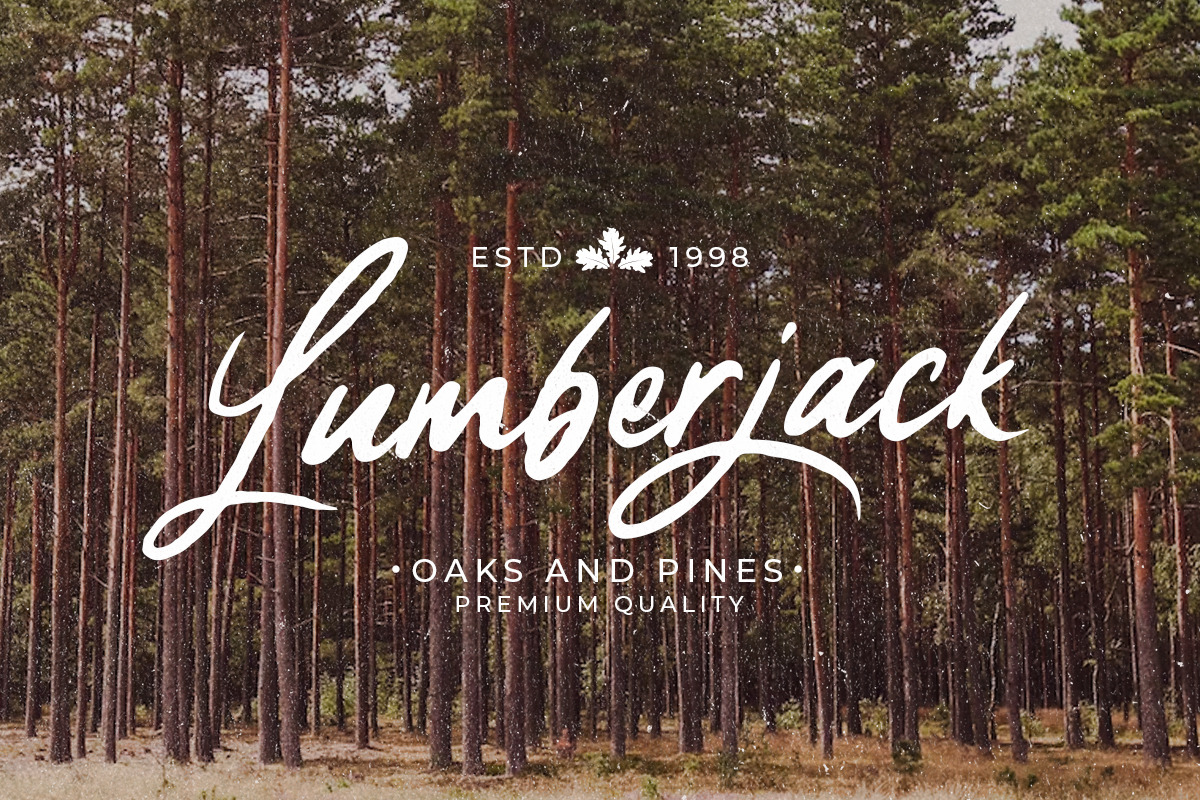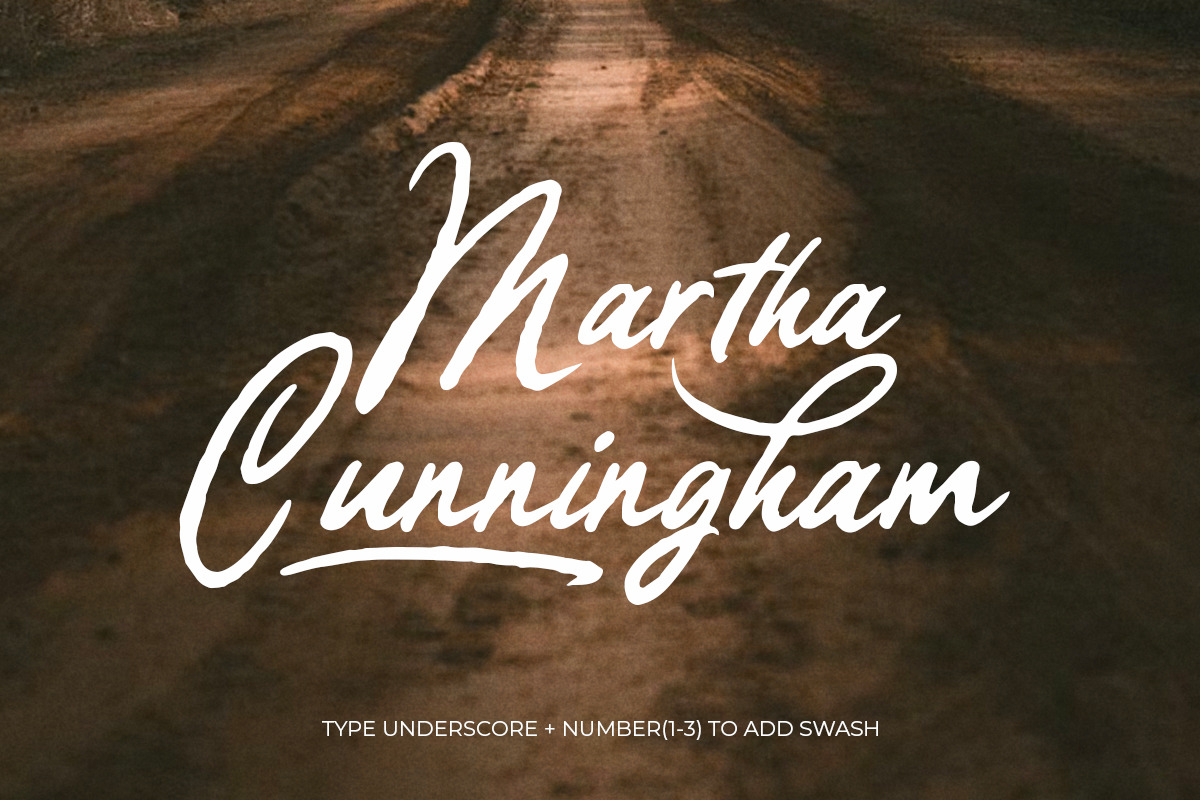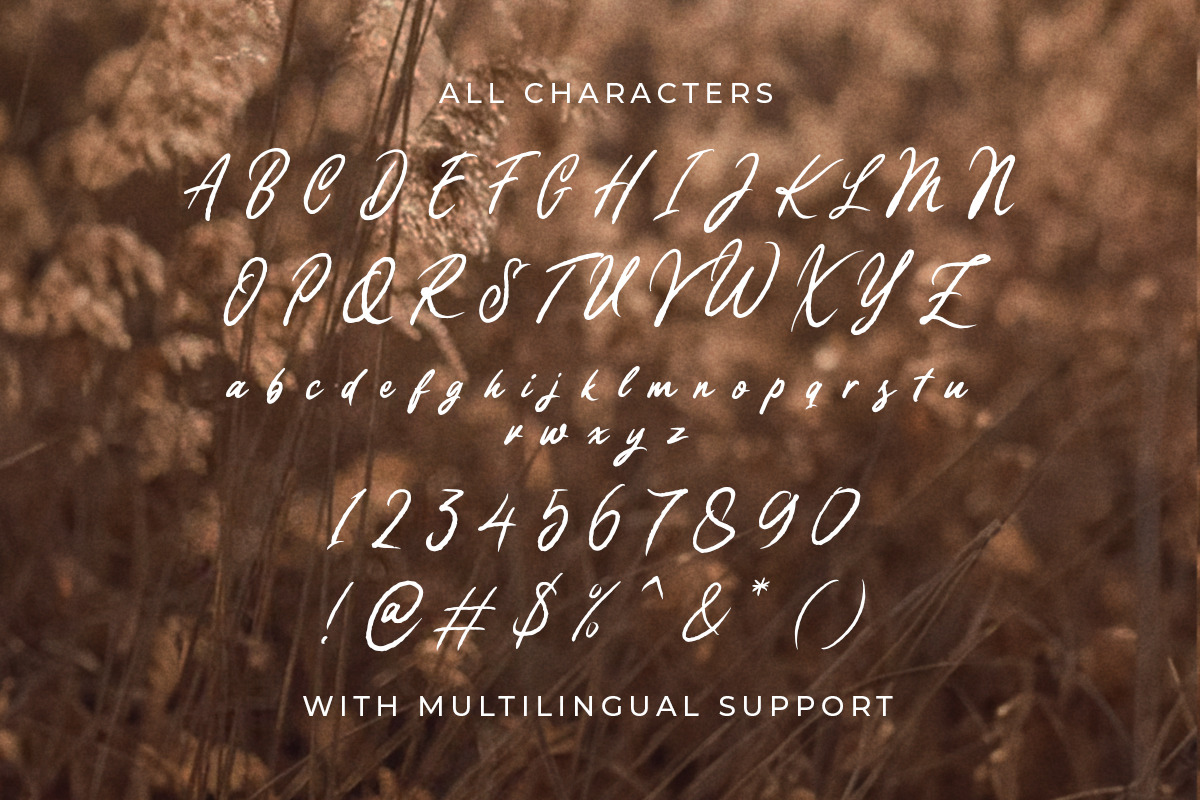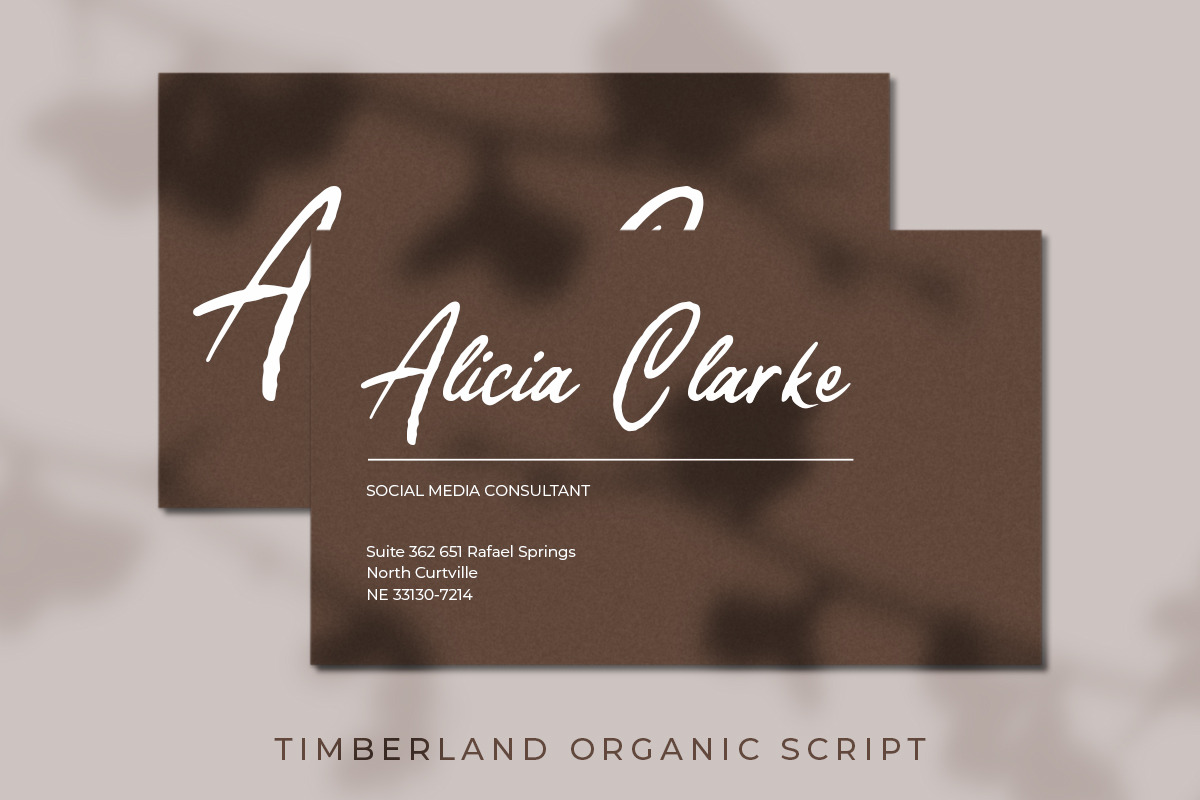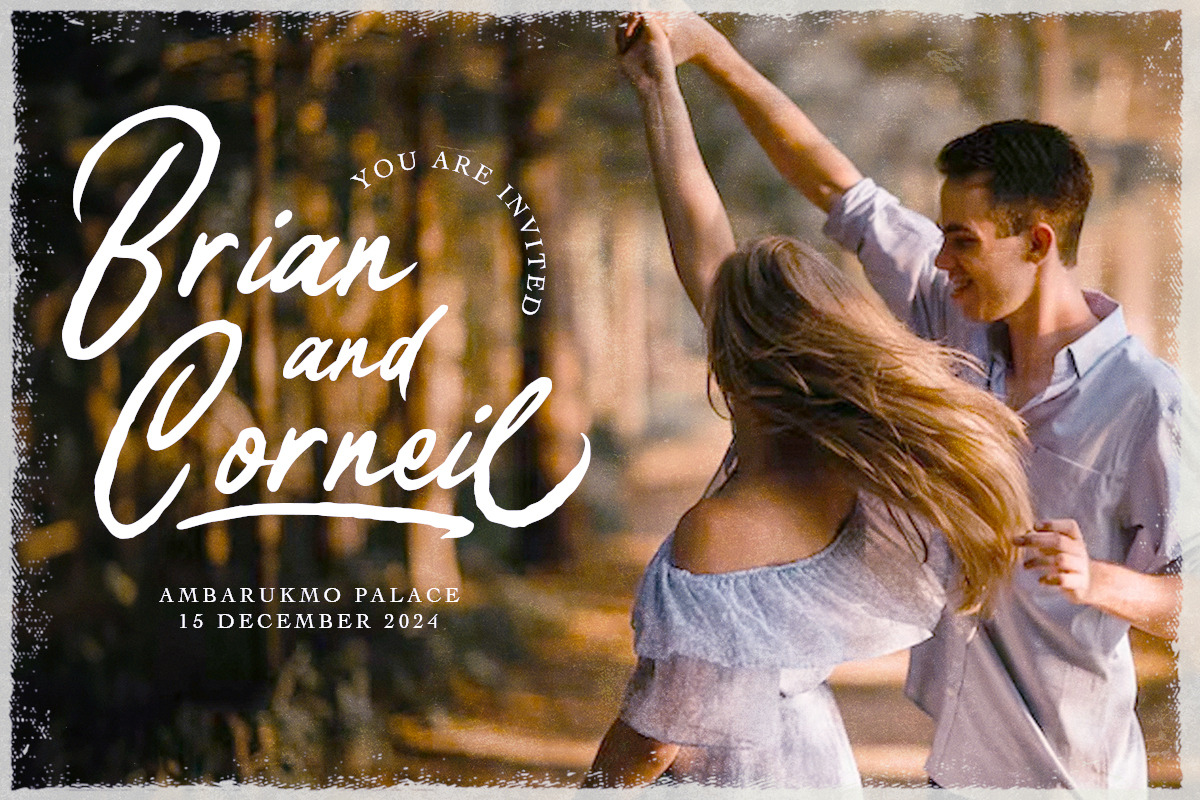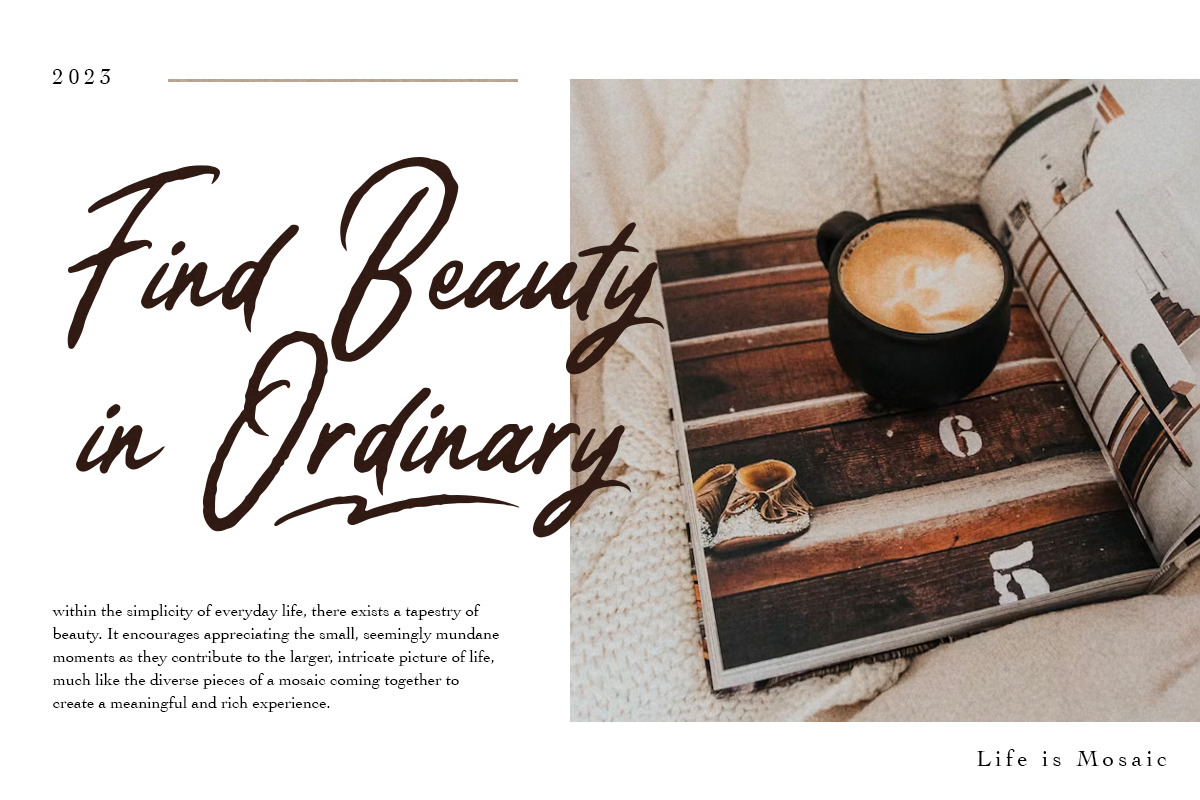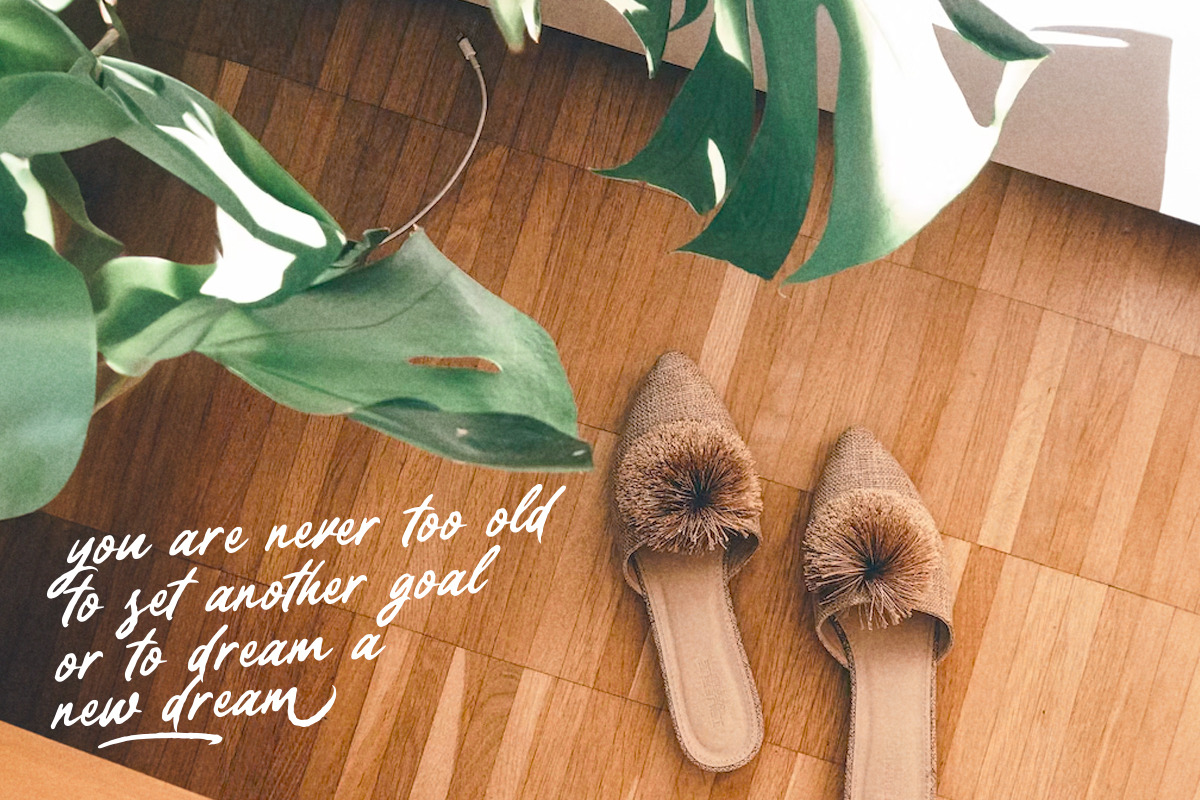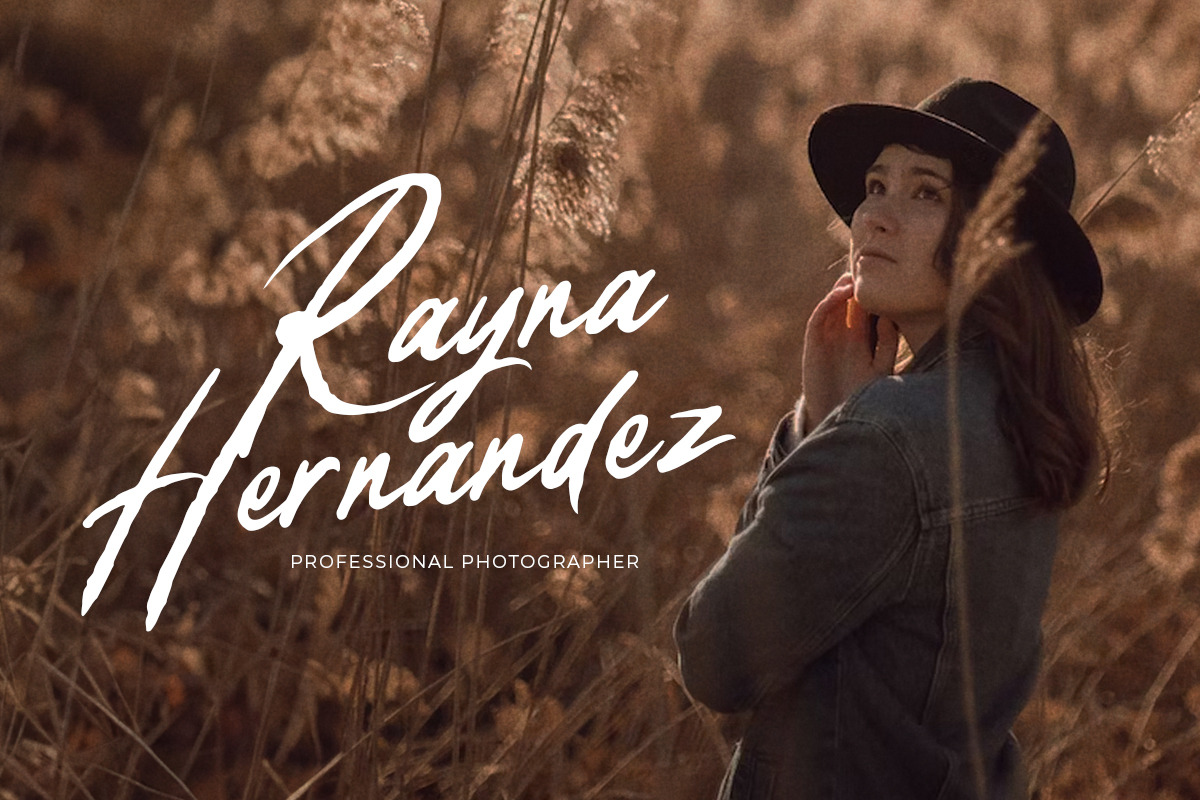
TImberland - Organic Script
Timberland is a casual script with organic style. This type of font perfectly made to be applied especially in logo, and the other various formal forms such as invitations, labels, logos, magazines, books, greeting / wedding cards, packaging, fashion, make up, stationery, novels, labels or any type of advertising purpose.